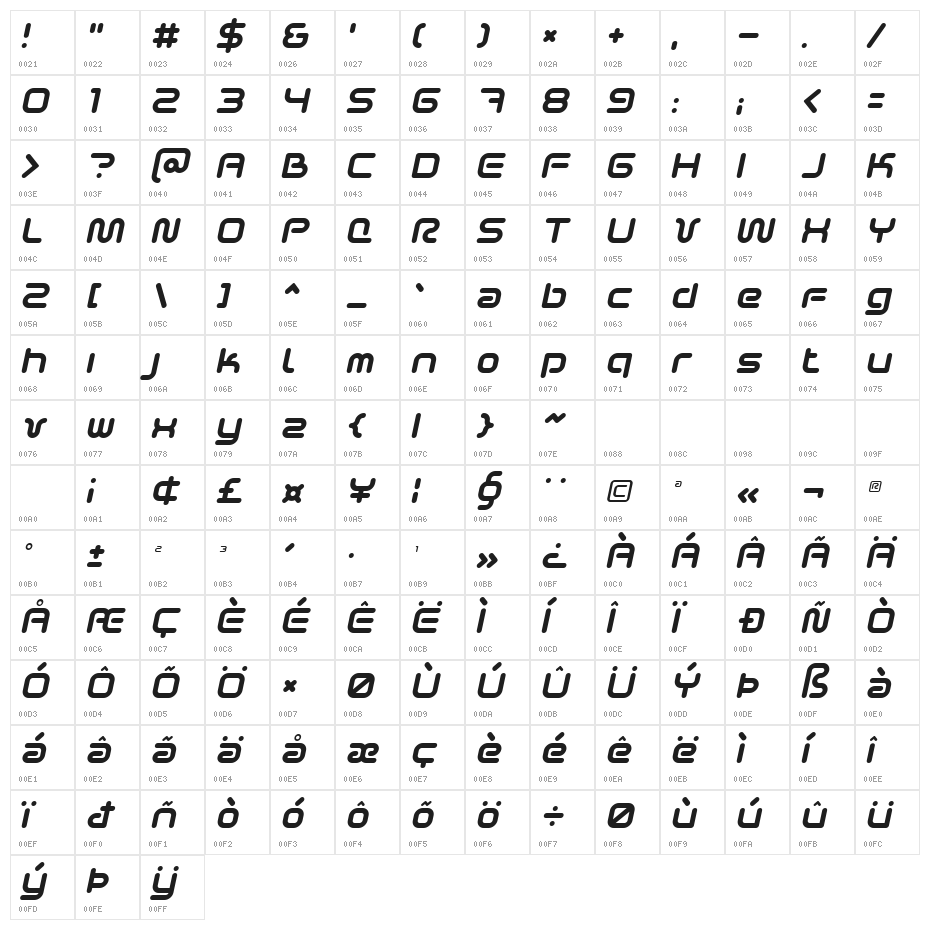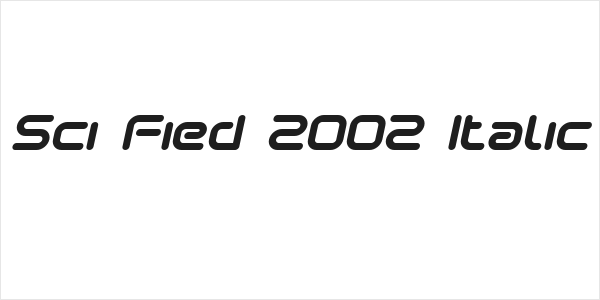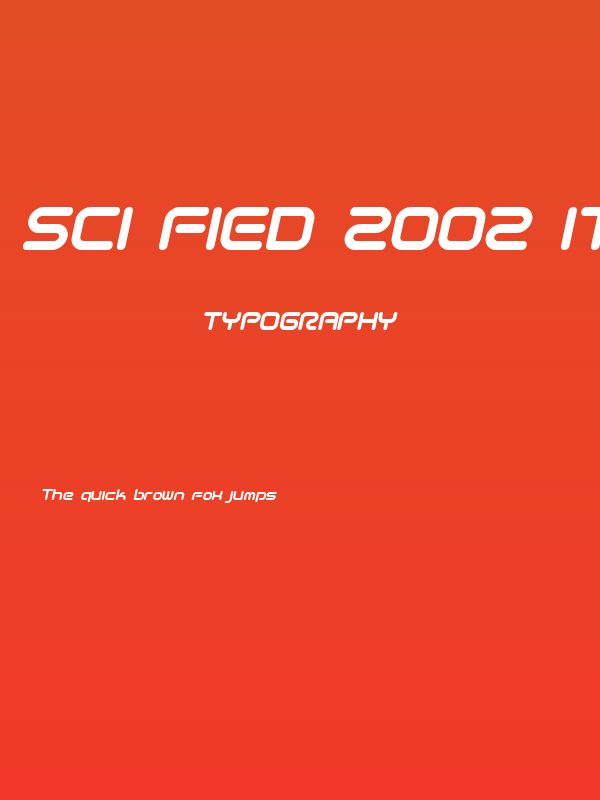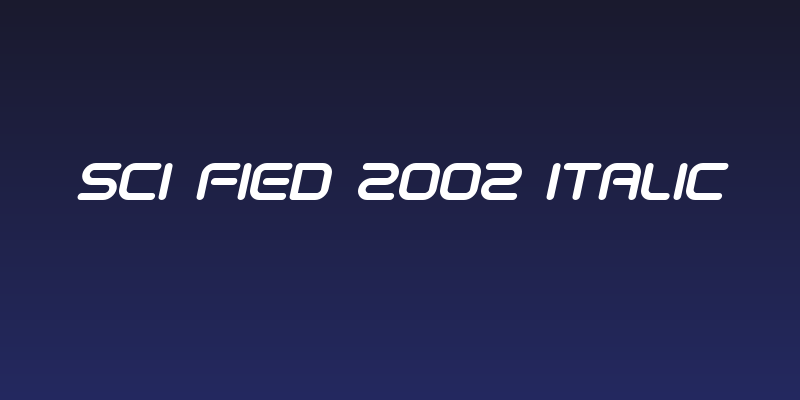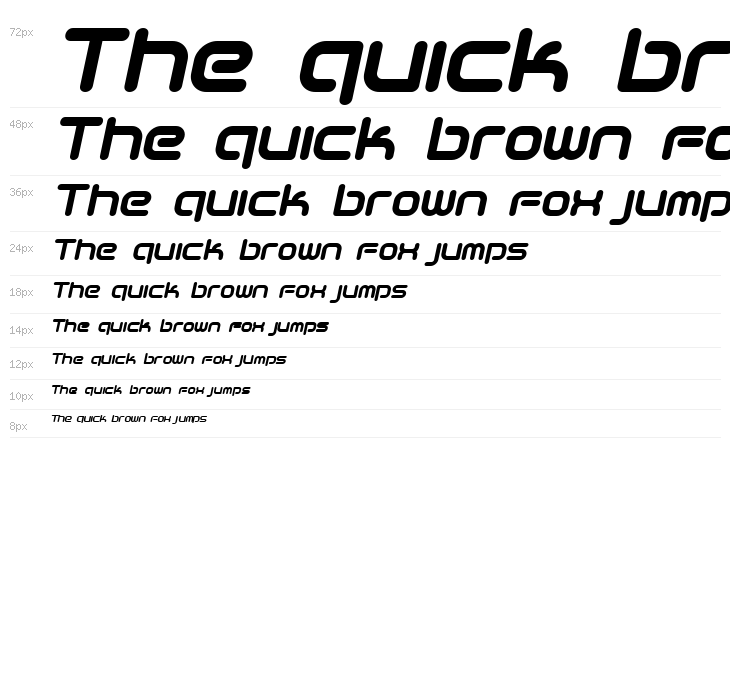
Sci Fied 2002 Italic Font
Sci Fied 2002 Italic Description
This futuristic and sleek typeface features rounded edges and a streamlined appearance, giving it a modern and technological feel. The characters are slightly italicized, enhancing the dynamic and forward-moving aesthetic. The uppercase and lowercase letters maintain a consistent style, with uniform stroke widths that contribute to its clean and polished look. The numbers and special characters are designed to match the overall theme, ensuring a cohesive visual experience. This font is ideal for projects that require a contemporary and innovative touch, such as technology branding, sci-fi themed designs, or digital interfaces.
| Use Case | Headlines, Logos, Digital Interfaces |
| Proposed Projects | Ideal for technology branding, sci-fi themed designs, digital interfaces, and innovative product packaging. |